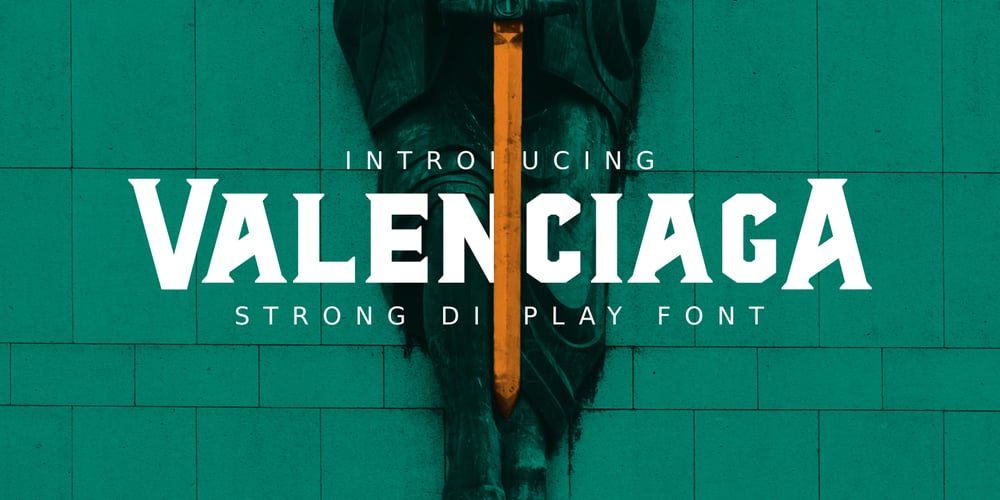
Al Valenciaga
Al Valenciaga font
Al Valenciaga Font Family was designed by Linggar Sundoro and published by Aluyeah Studio. Al Valenciaga contains 1 styles and family package options. Al Valenciaga is a strong display font. Valenciaga is a fully-kerned titlecase display typeface built for strong design vibes. Valenciaga is raw and uncut with sharp terminals and serifs that give off an aggressive appearance. The difference in depth between the uppercase and lowercase, making Valenciaga very suitable to be the display font for your product packaging, logo, branding, and more!This typeface features 180+ characters with some language adaption that is guaranteed to give your project a competitive edge. Thanks for checking out Al Valenciaga. I really hope you enjoy using it.If you have any questions I’d be more than happy to answer them, just send me a message.